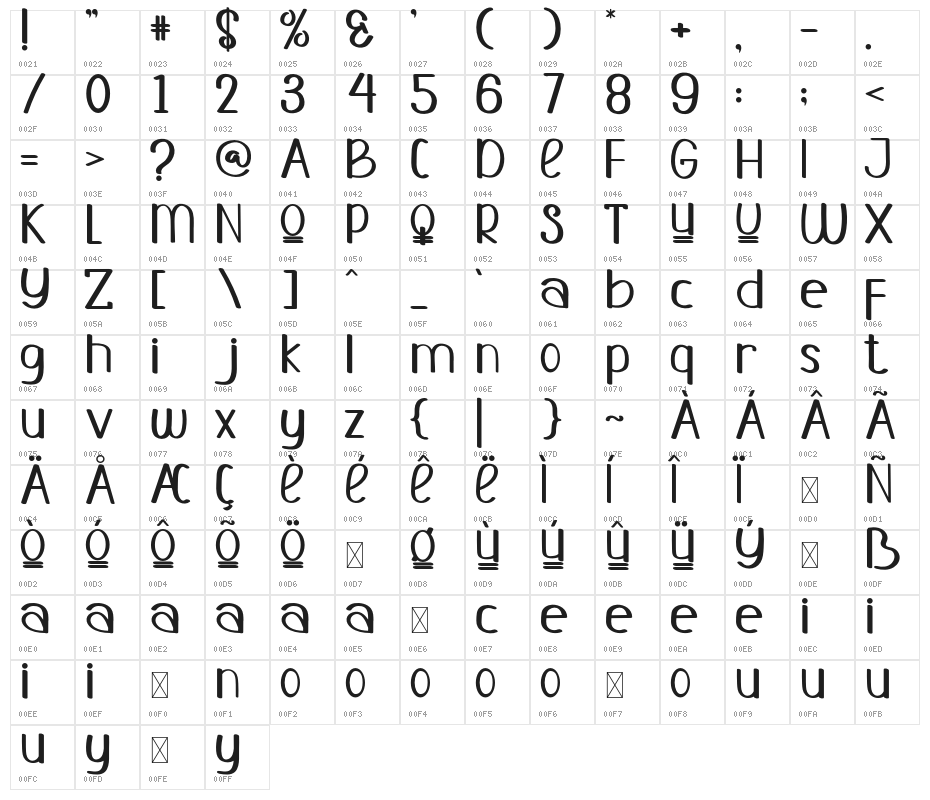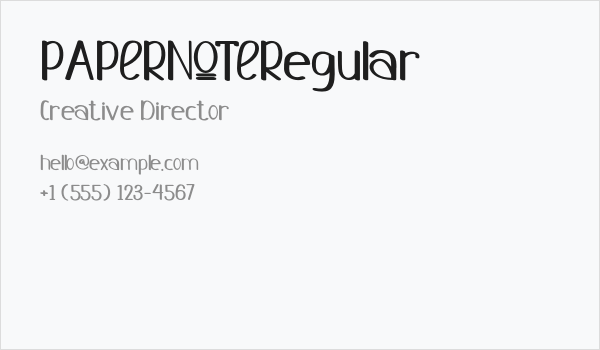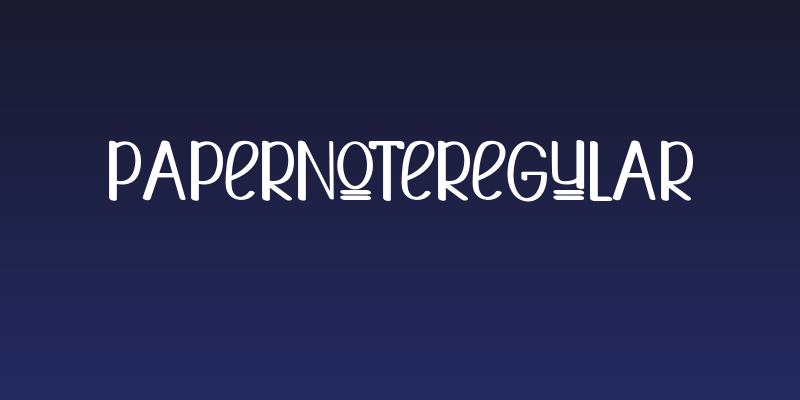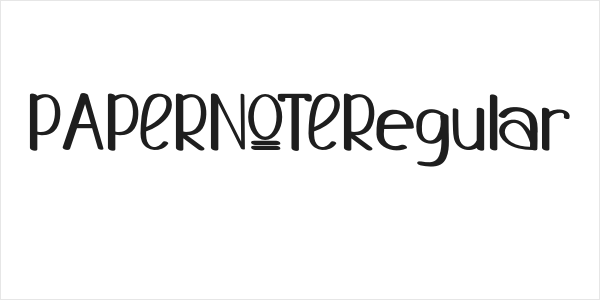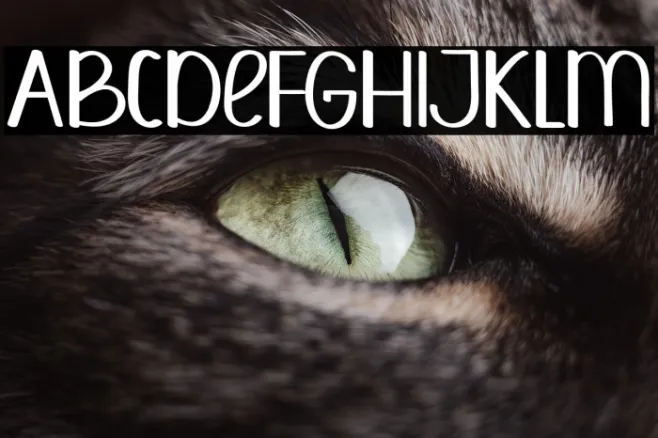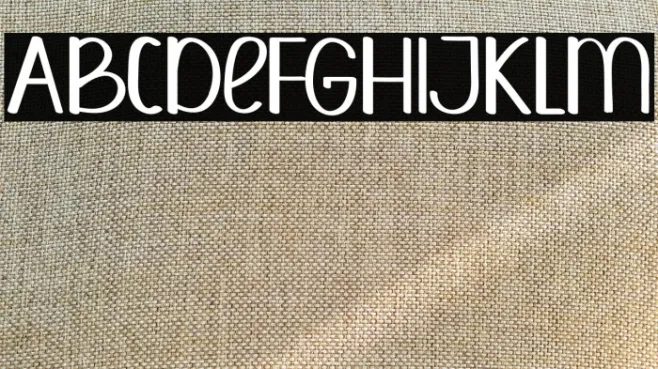
PAPERNOTERegular Font
PAPERNOTERegular Description
This font presents a playful and modern aesthetic with its rounded and slightly elongated letterforms. The uppercase letters exhibit a unique style with consistent stroke widths, while the lowercase letters maintain a friendly and approachable appearance. The numerals are clear and easy to read, complementing the overall design. Special characters are well-integrated, adding to the font's versatility. The font's smooth curves and balanced proportions make it suitable for a variety of design applications, offering a contemporary yet casual vibe.
| Proposed Projects | Ideal for children's books, casual branding, playful posters, and modern web design. |